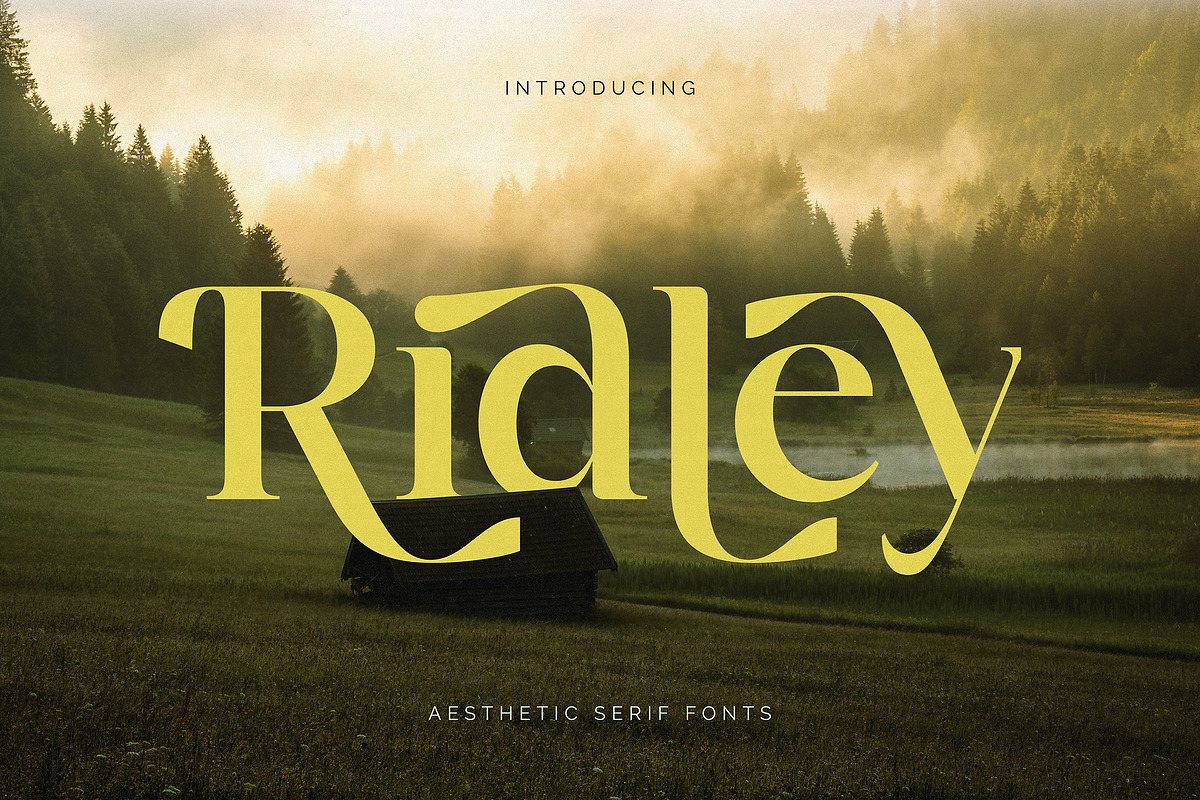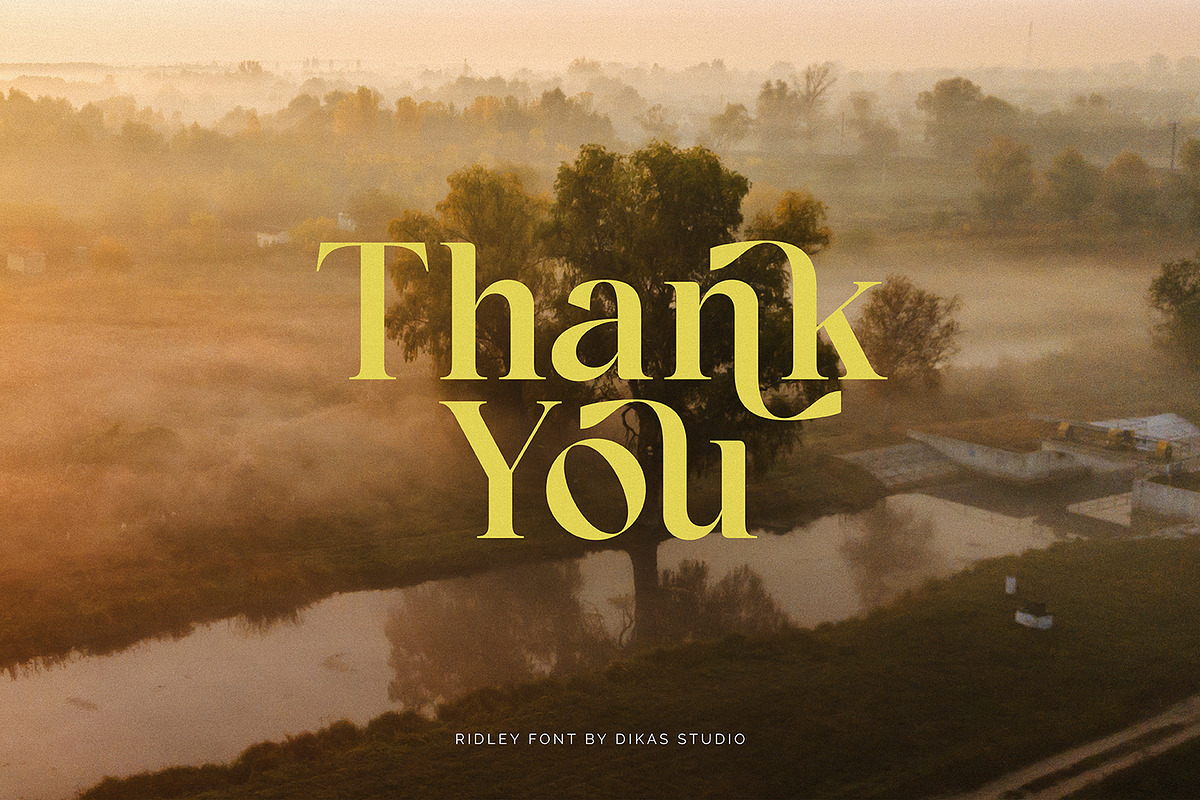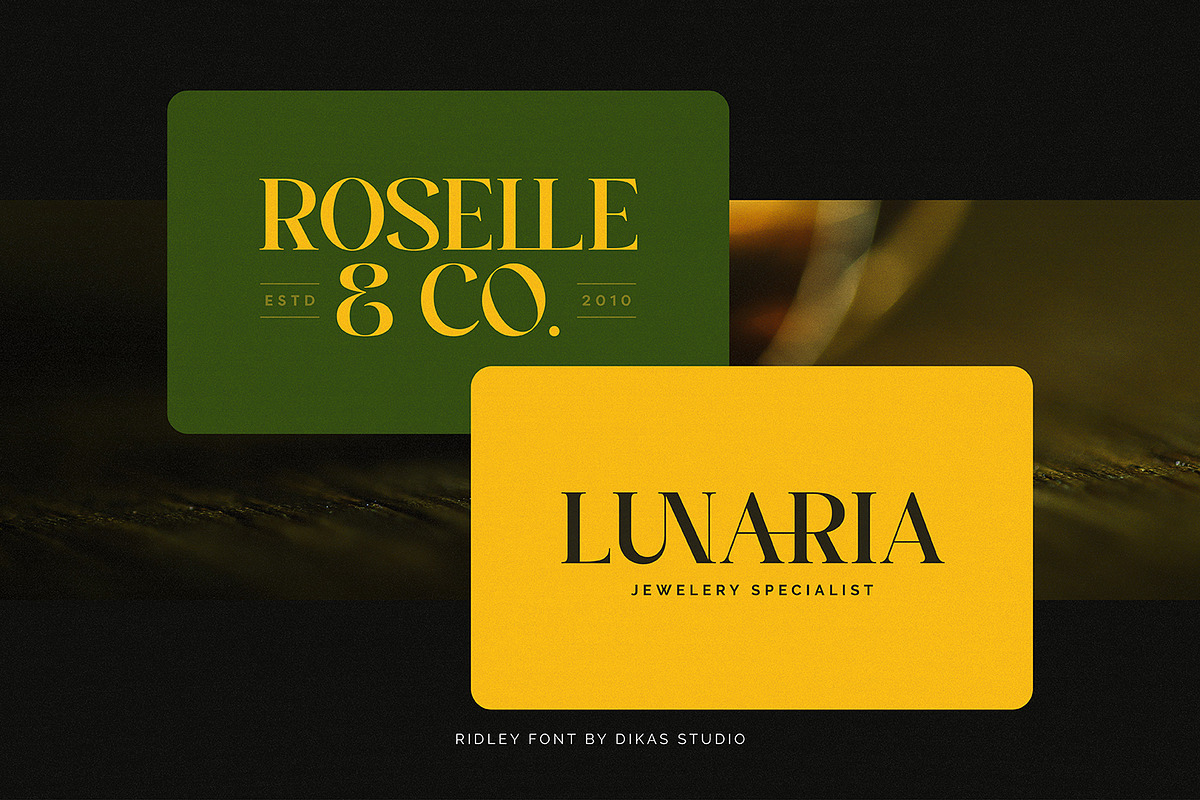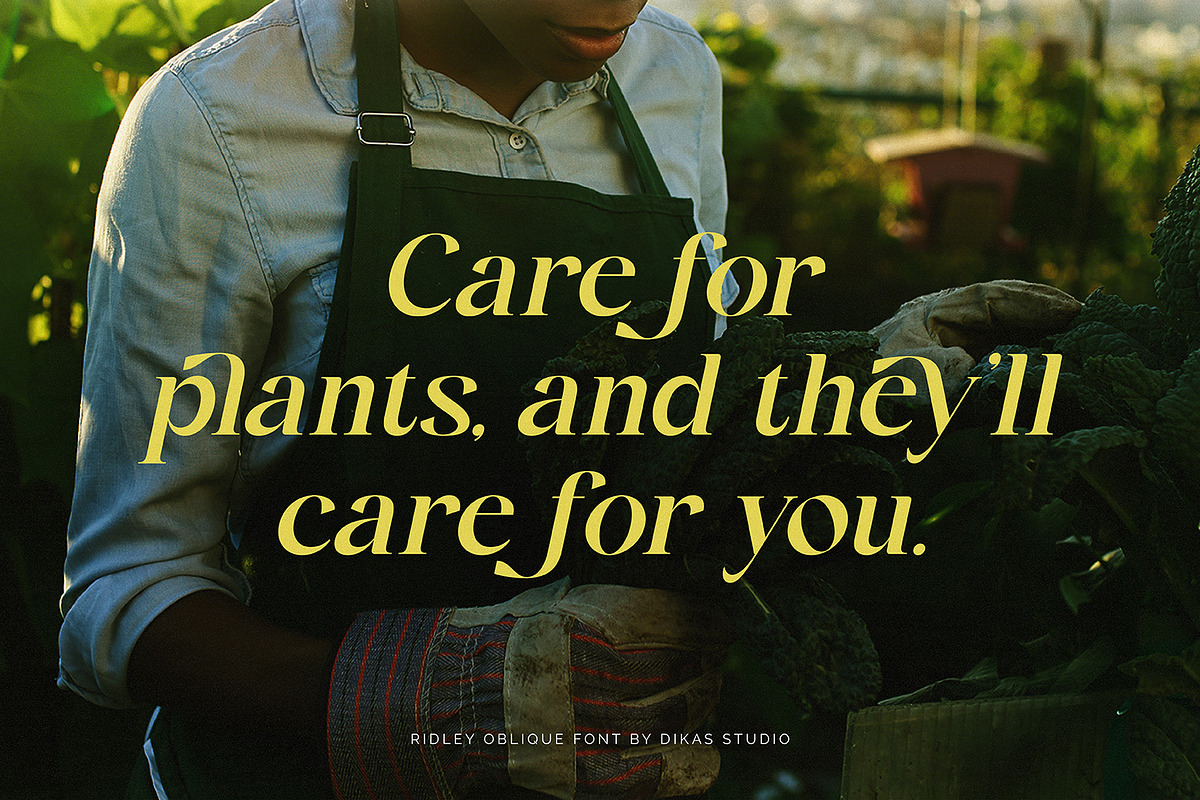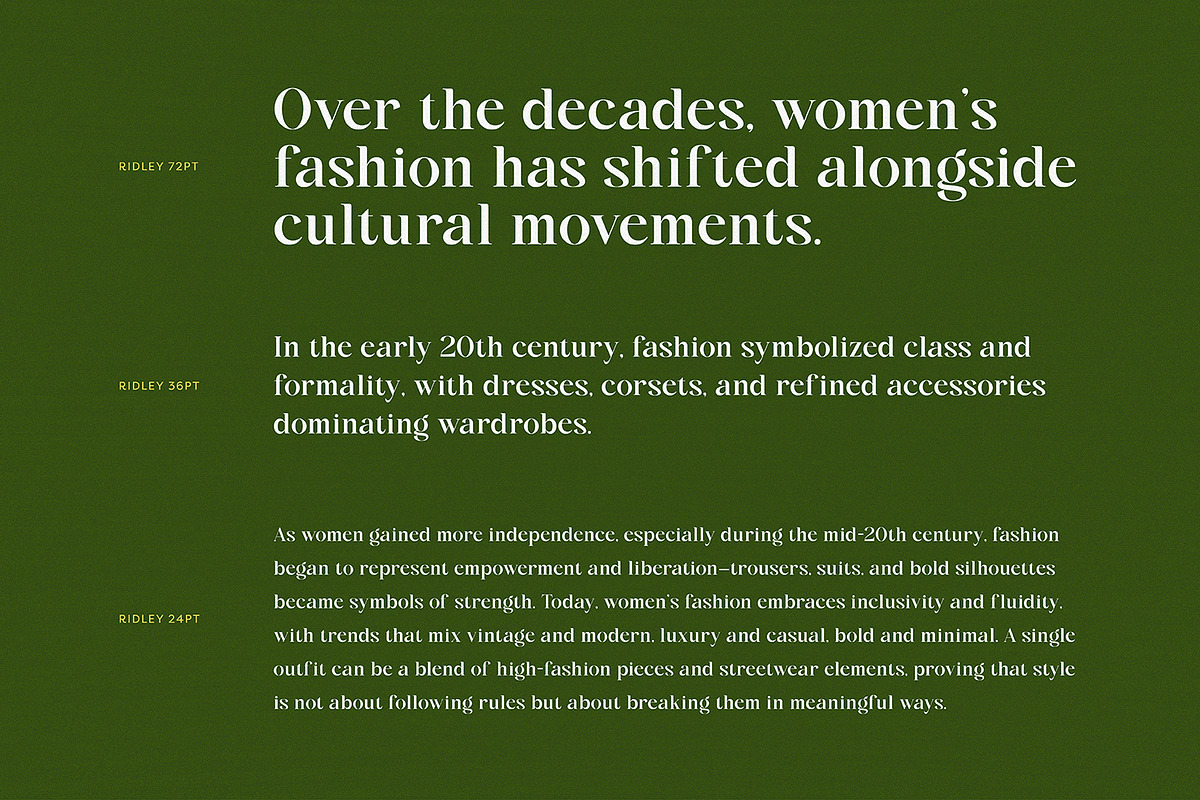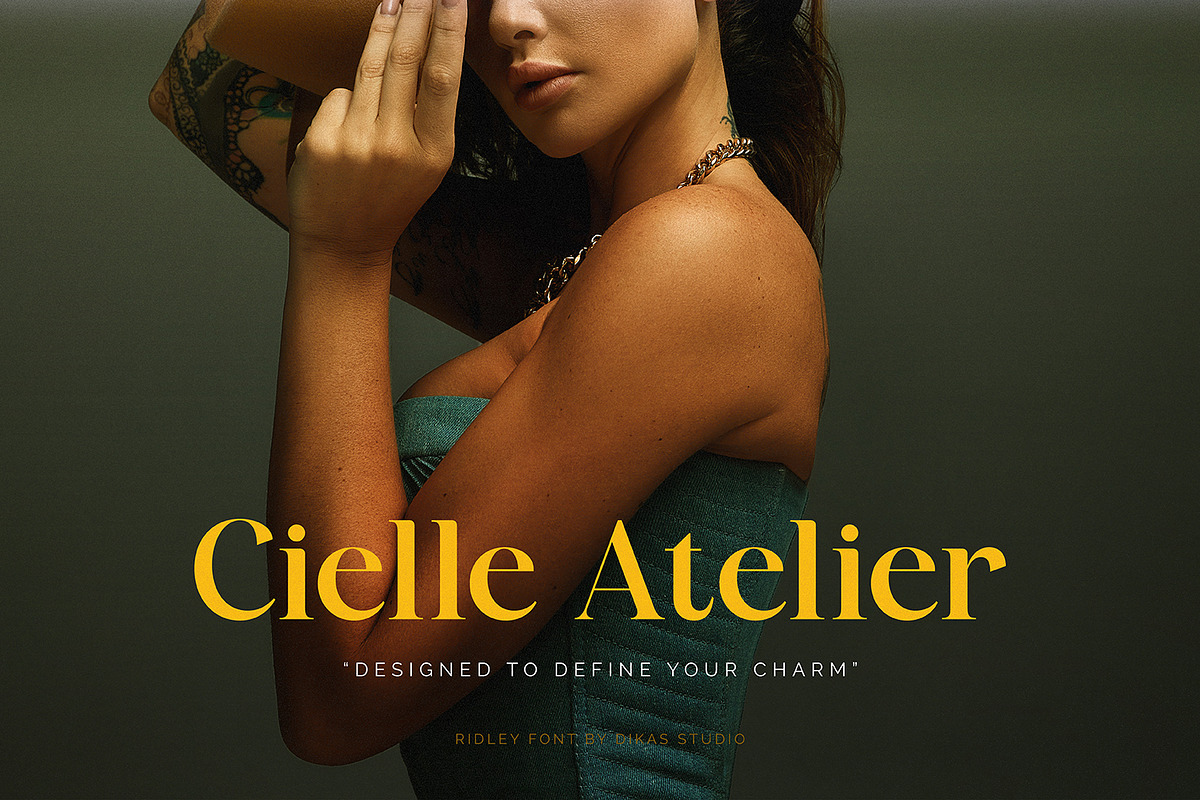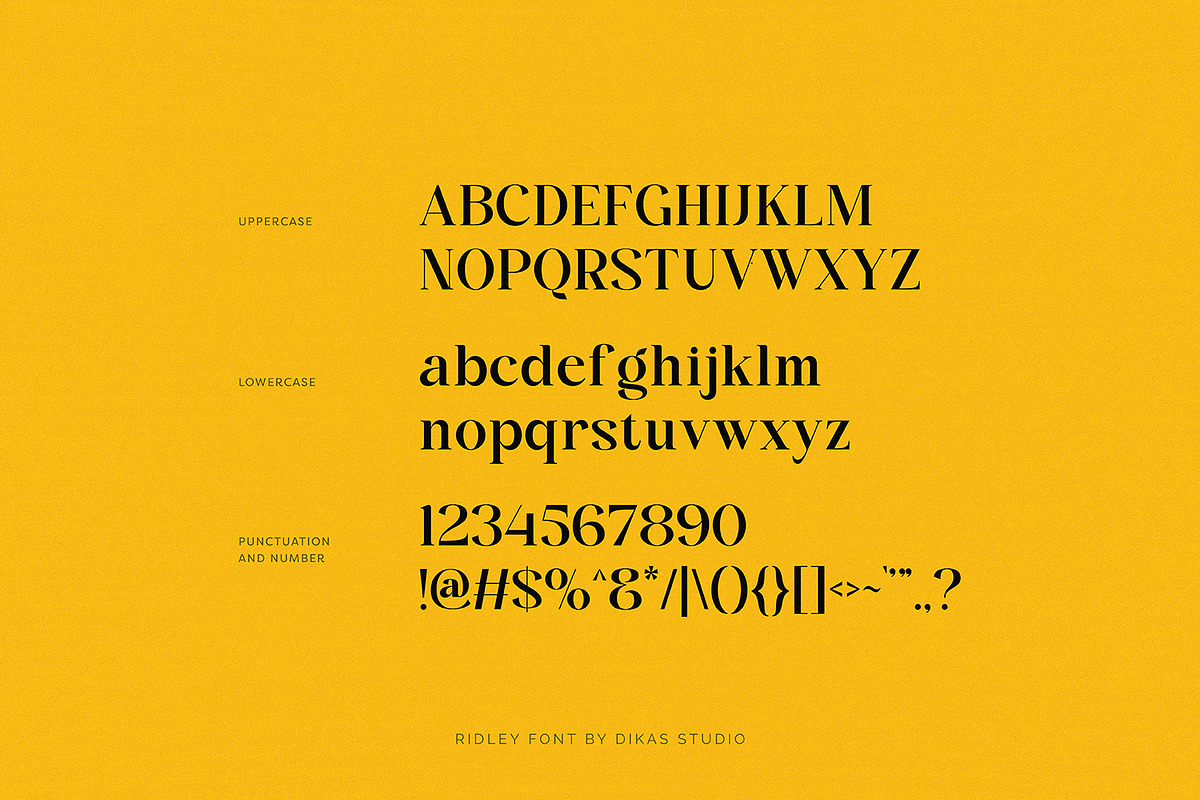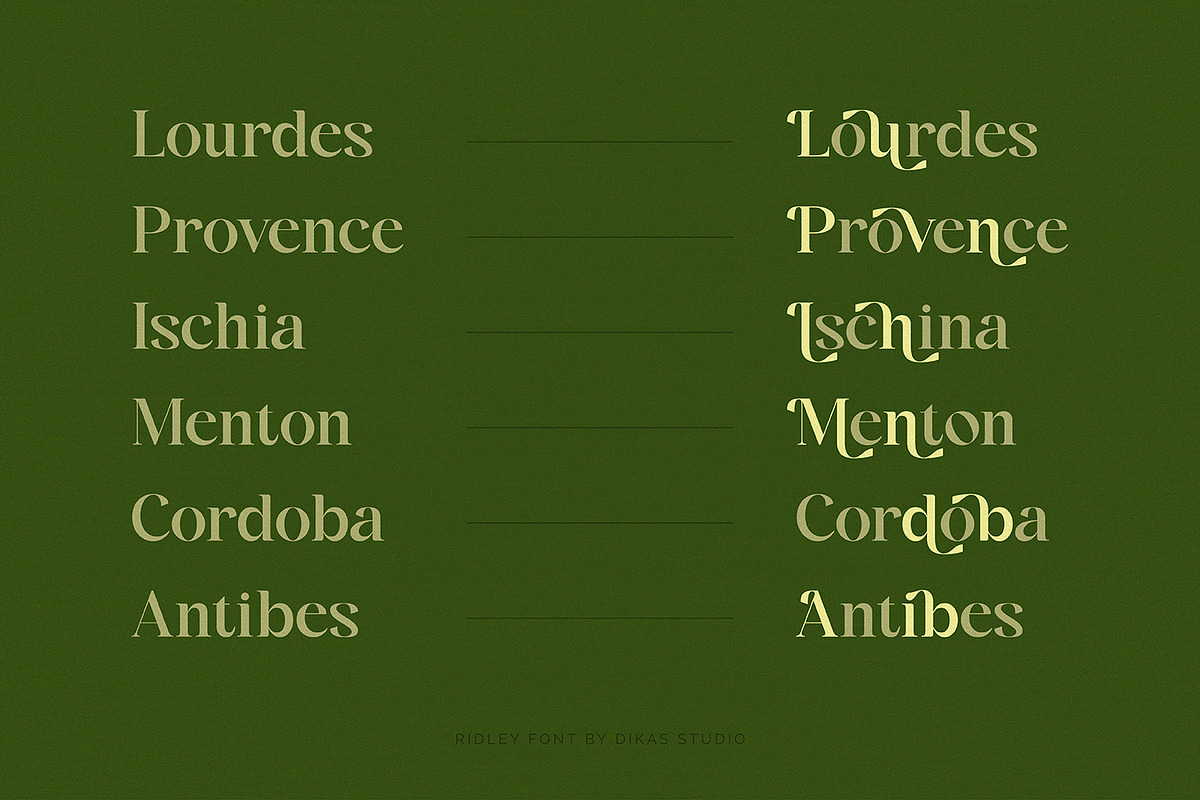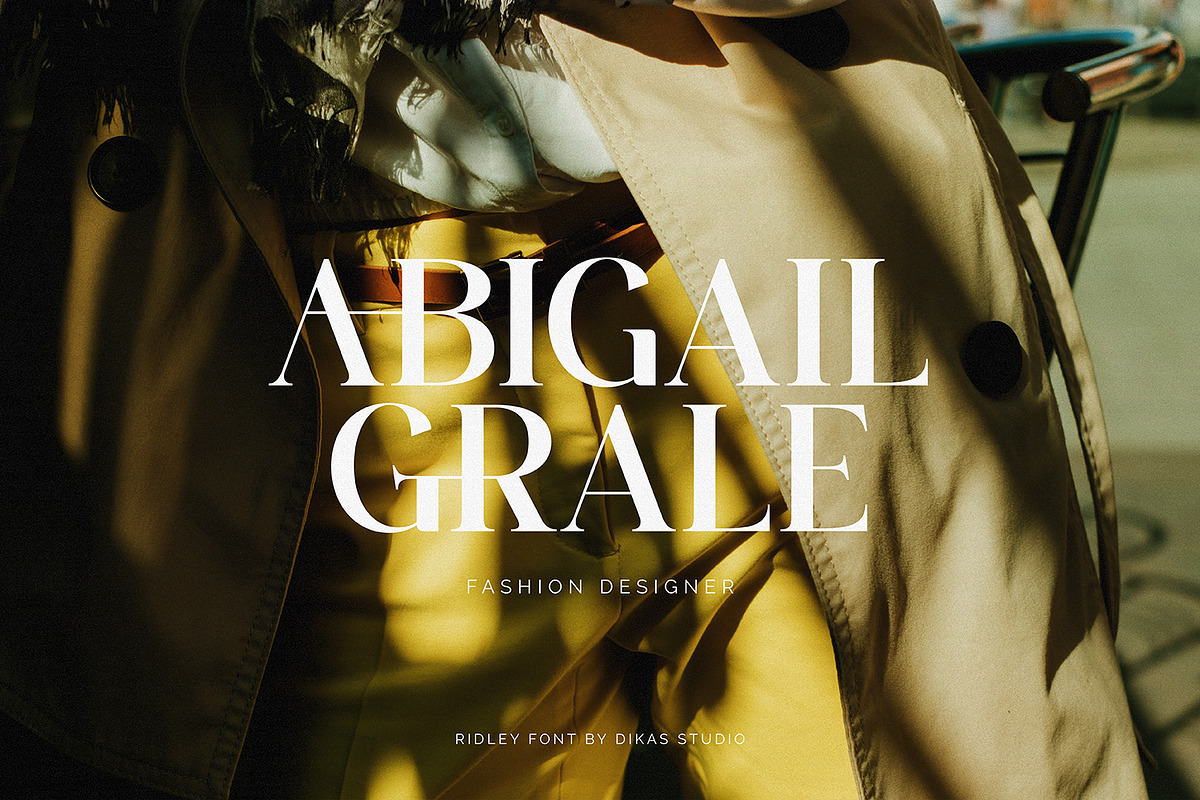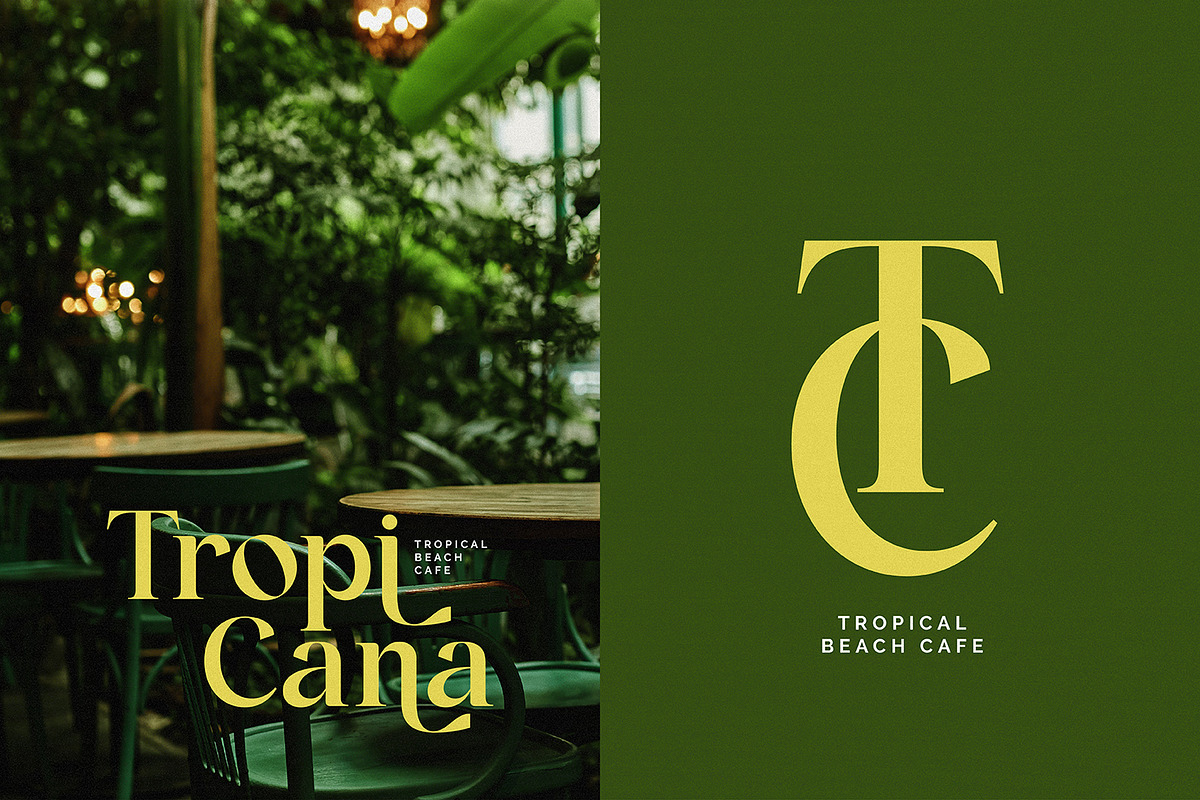
Ridley
Ridley is an aesthetic serif font with a subtle touch of retro charm. Designed in two styles — Regular and Oblique, it offers flexibility for both classic and expressive designs. Its flowing alternate characters create beautiful, curving forms that bring elegance and creativity to your typography. Perfect for logotypes, headlines, and titles, Ridley combines timeless serif structure with artistic flair to make every word stand out.